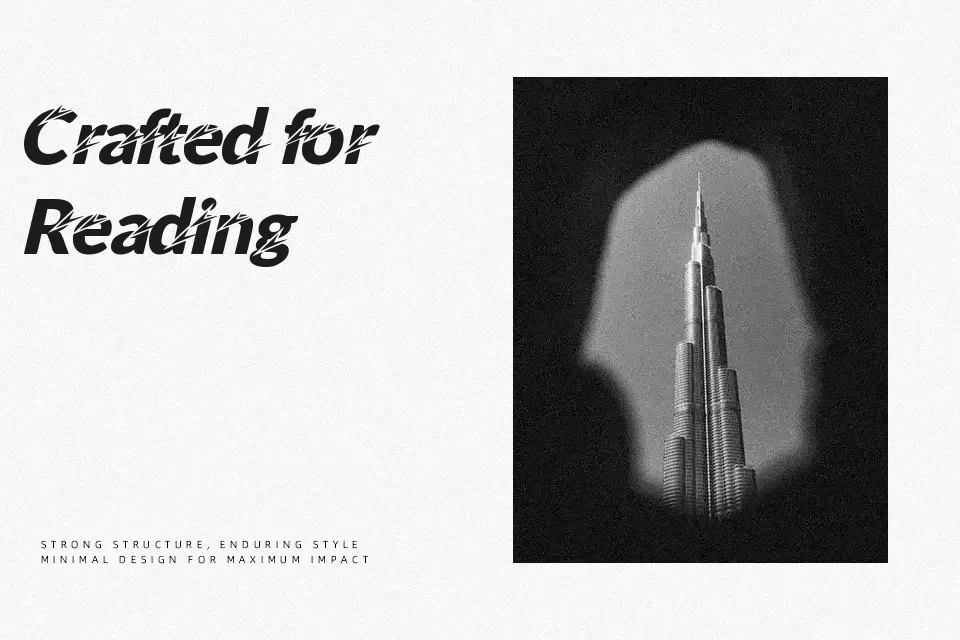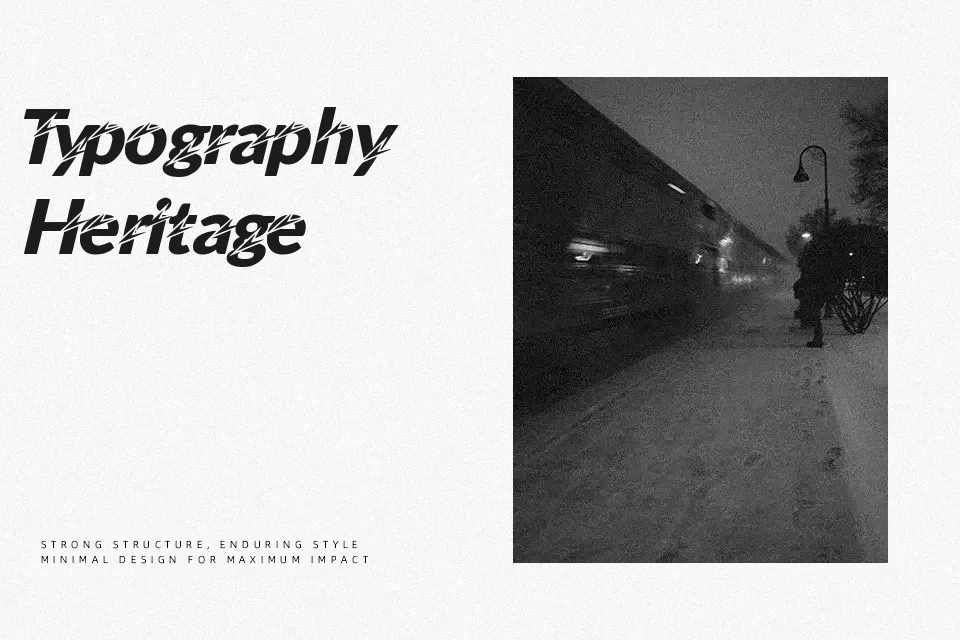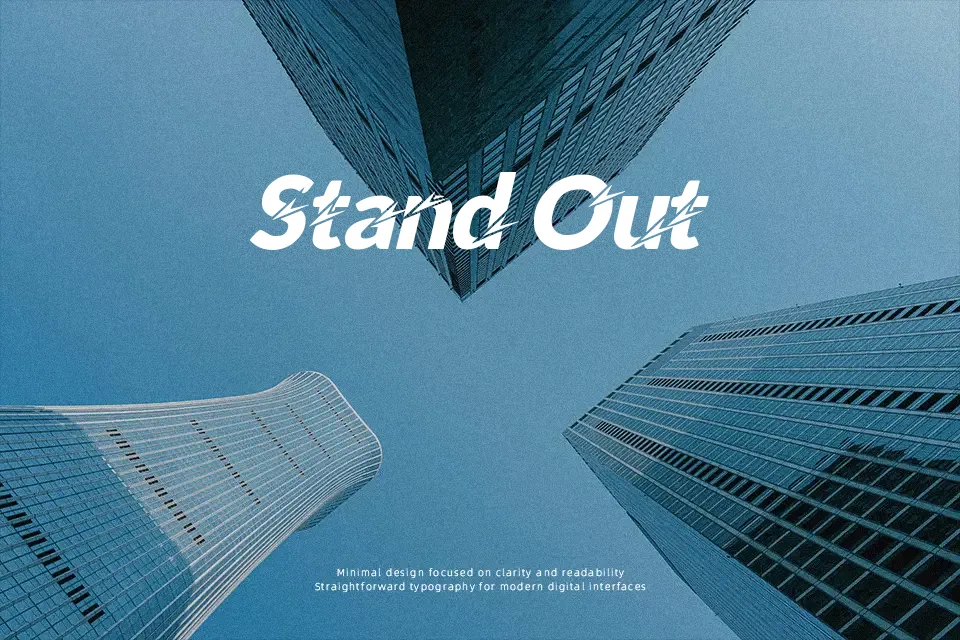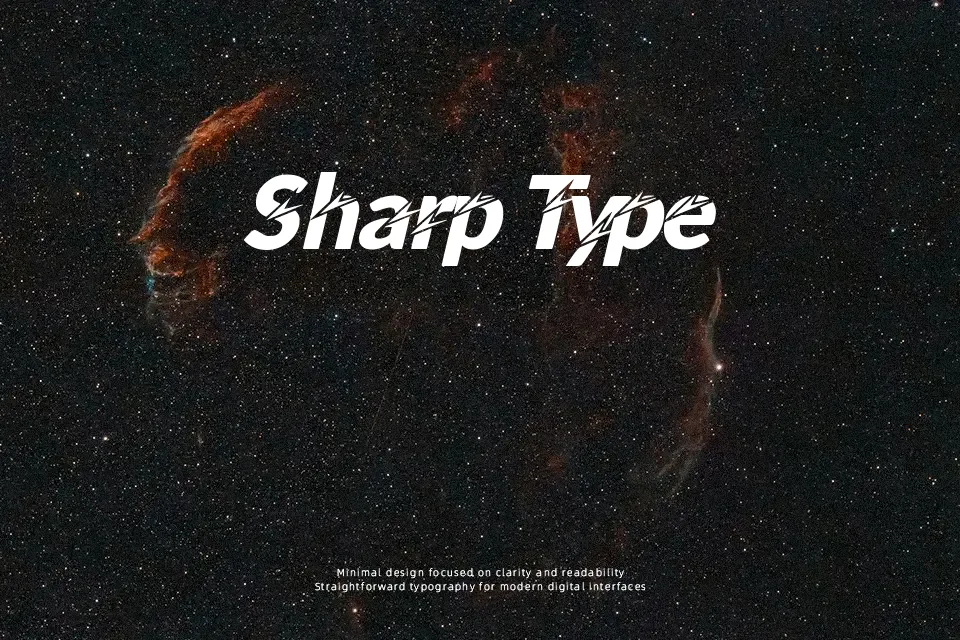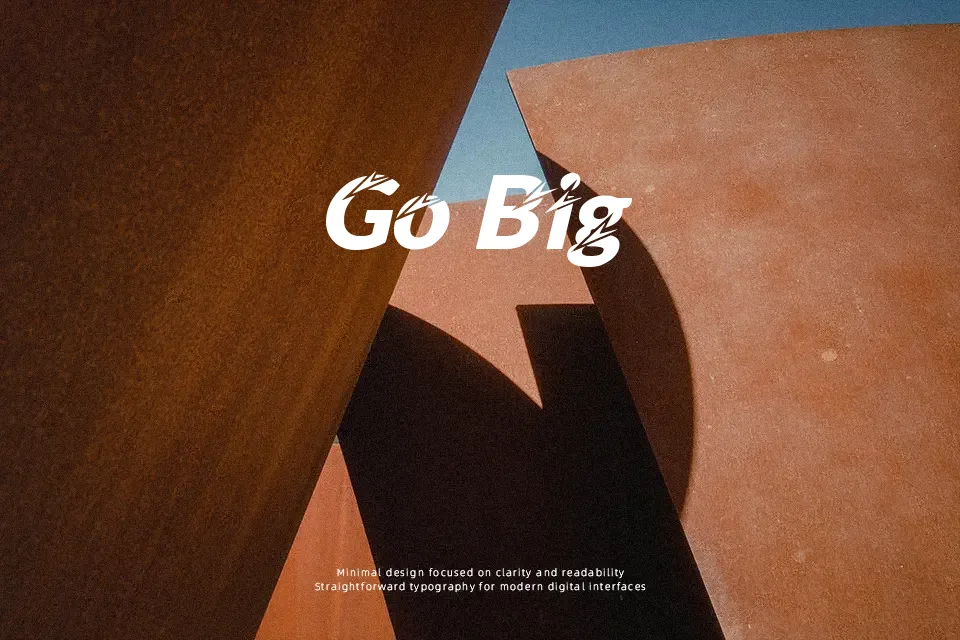
Sting Font
Designed by Upan Sulfan
Sting Font immediately captures attention through its forward-leaning stance, heavy stroke weight, and sharp diagonal splits traversing each character. The solid uppercase letterforms maintain balanced proportions and compact spacing, producing a cohesive visual rhythm suitable for high-energy branding, gaming logos, and athletic promotional graphics. Numerals share the same angled motifs, sustaining visual consistency across numerical callouts. However, the complex interior cuts and thick strokes severely reduce legibility when scaled down, making the typeface less suitable for continuous body text or dense layouts. In large display settings, the bold styling delivers unmistakable visual power without sacrificing immediate headline clarity.
Best For: esports team branding, sports apparel graphics, action movie posters, gaming tournament headlines
Not Ideal For: long paragraph text, mobile UI body copy, technical manuals, dense editorial layouts
Perfect for gaming, headline, and logo, with a bold and decorative style.